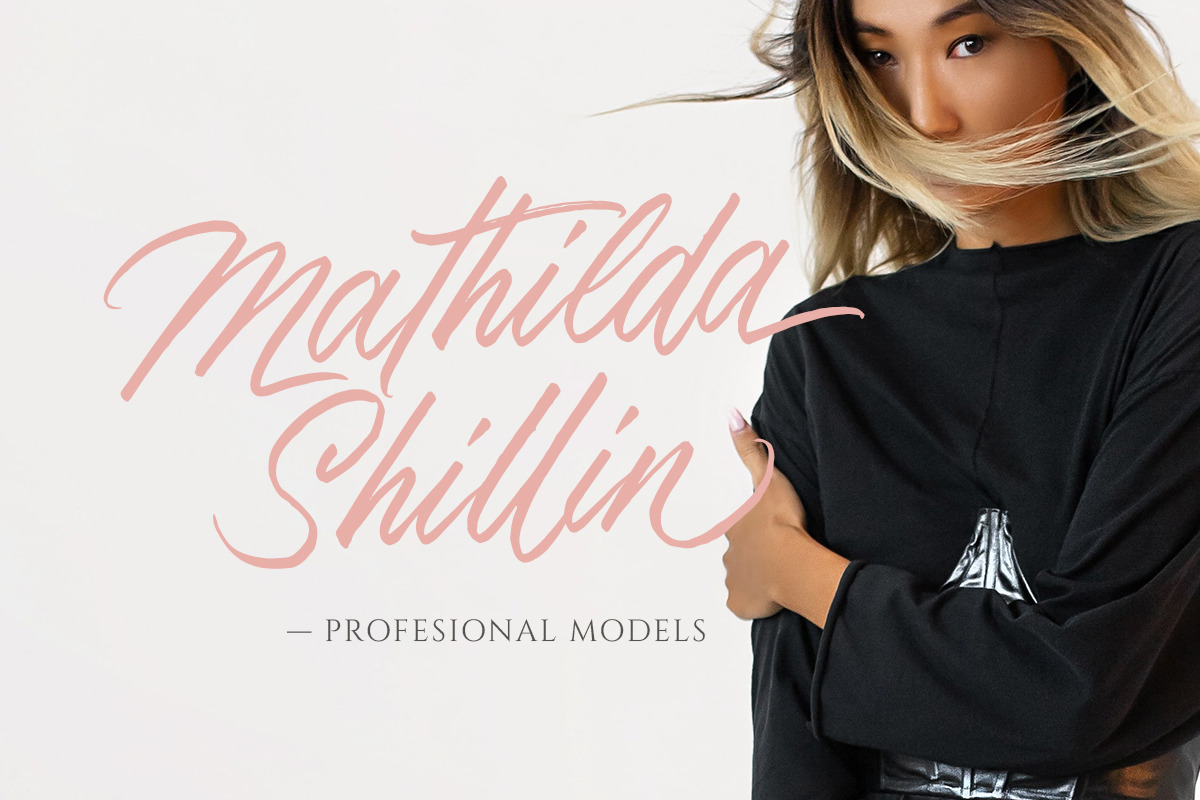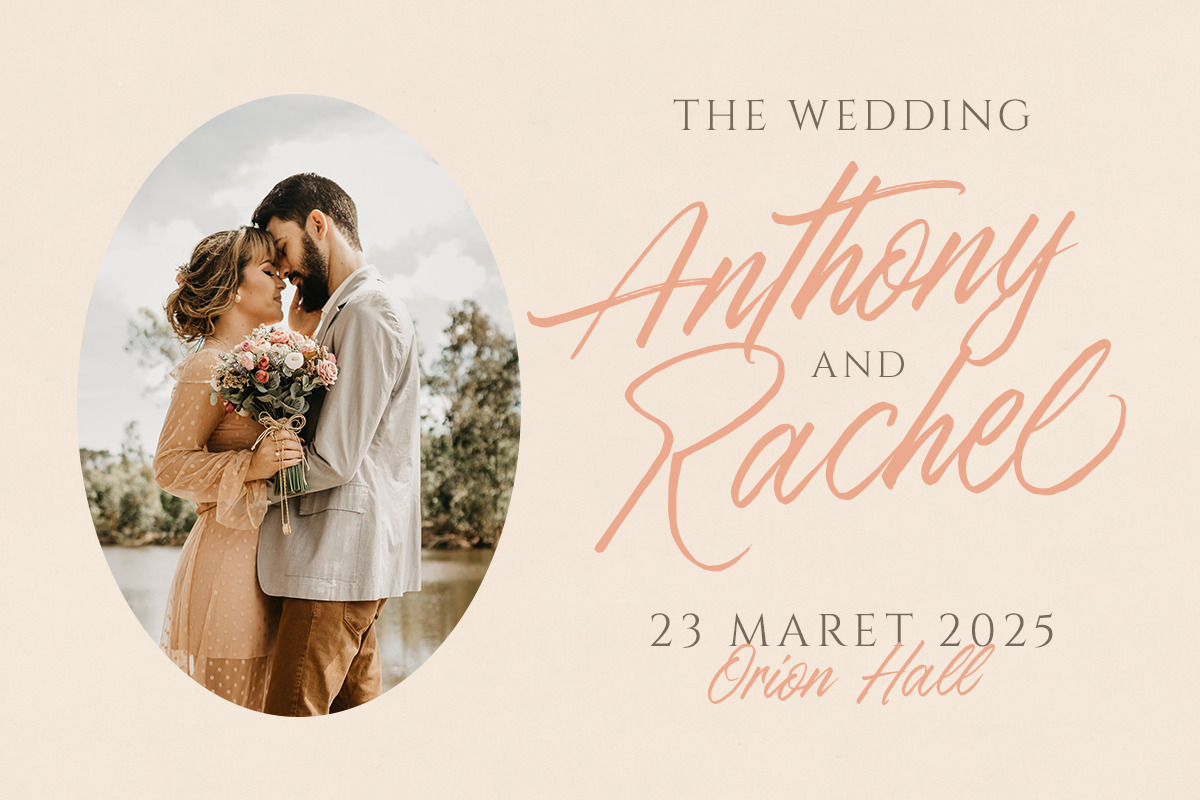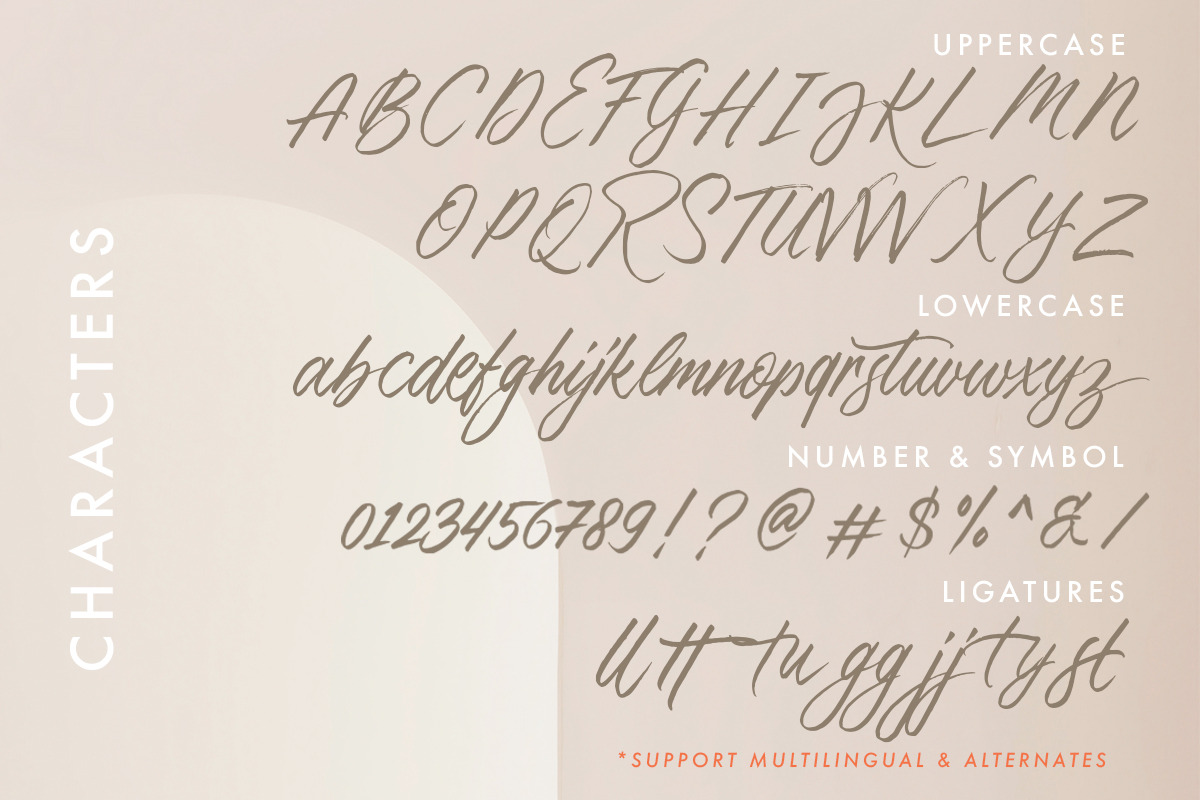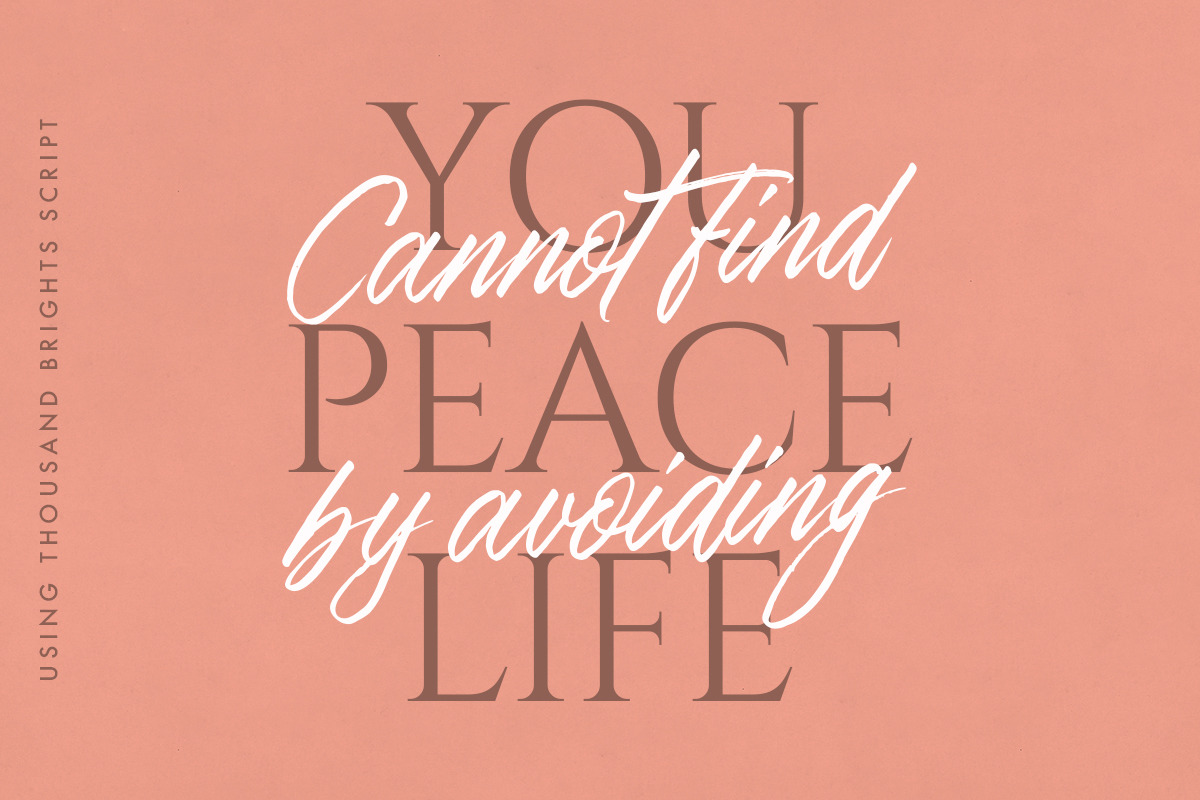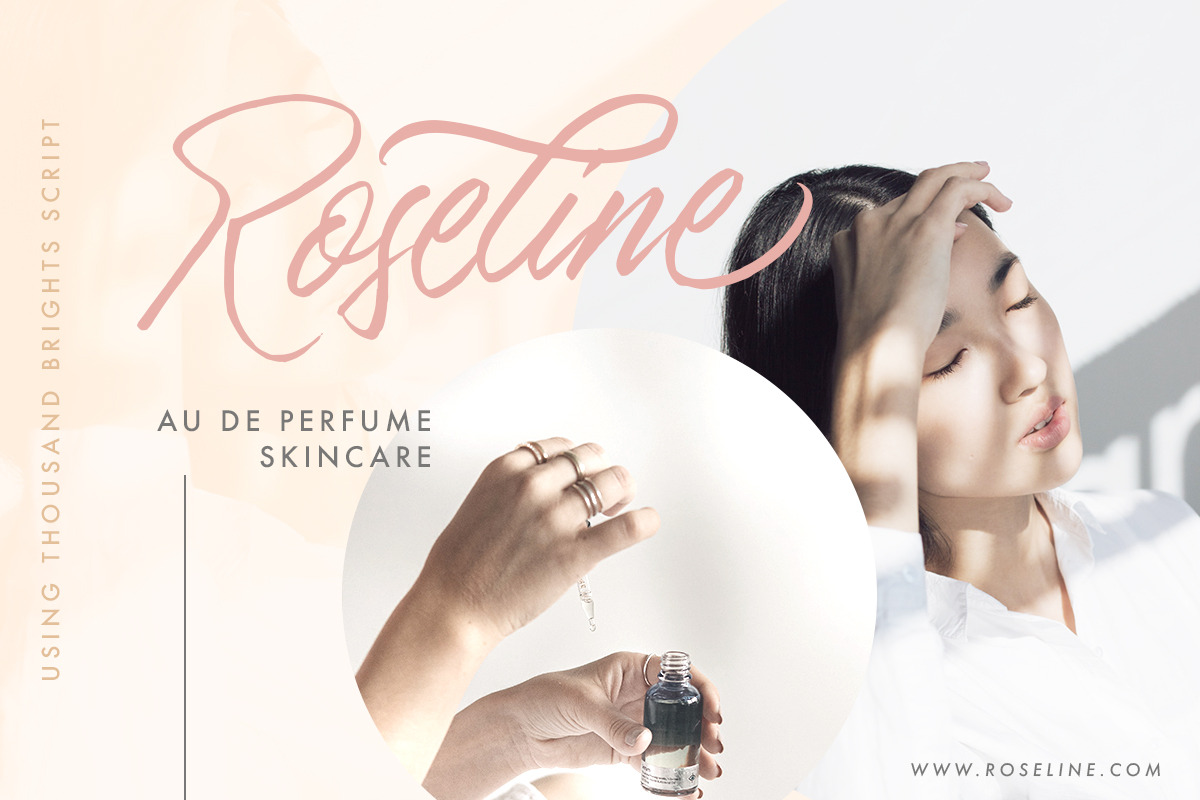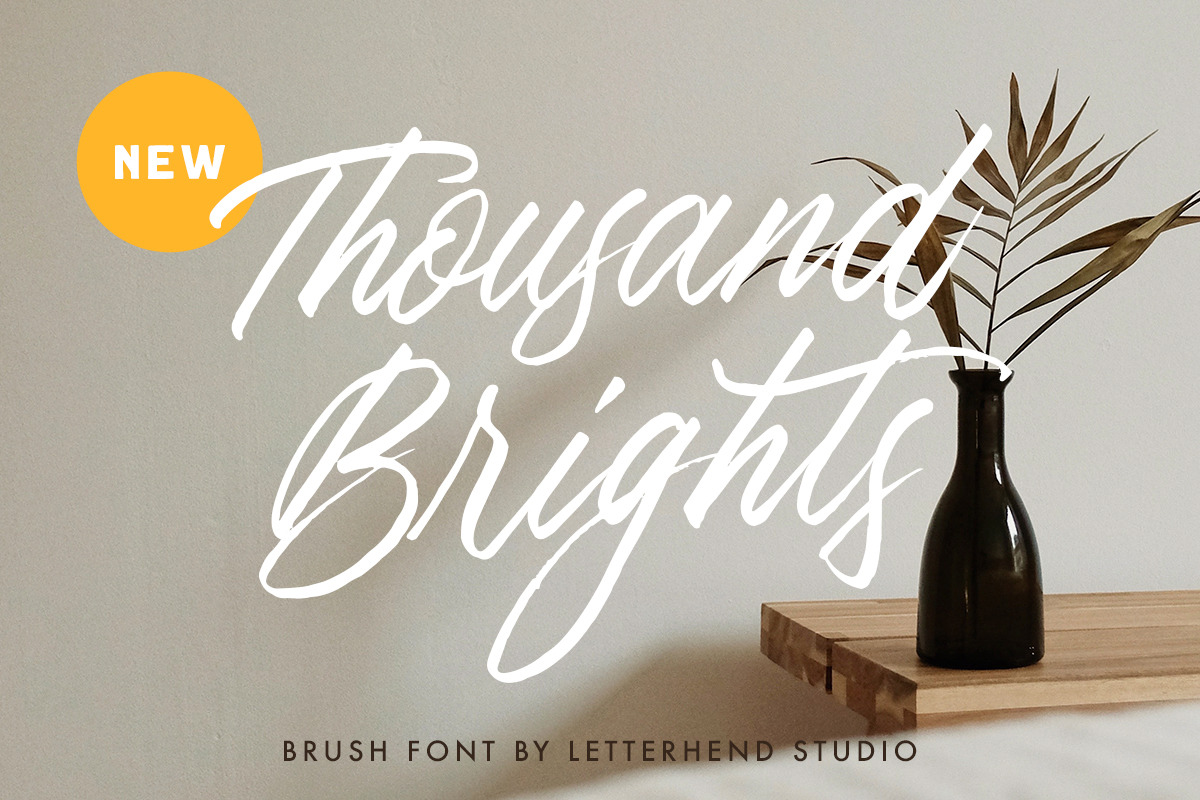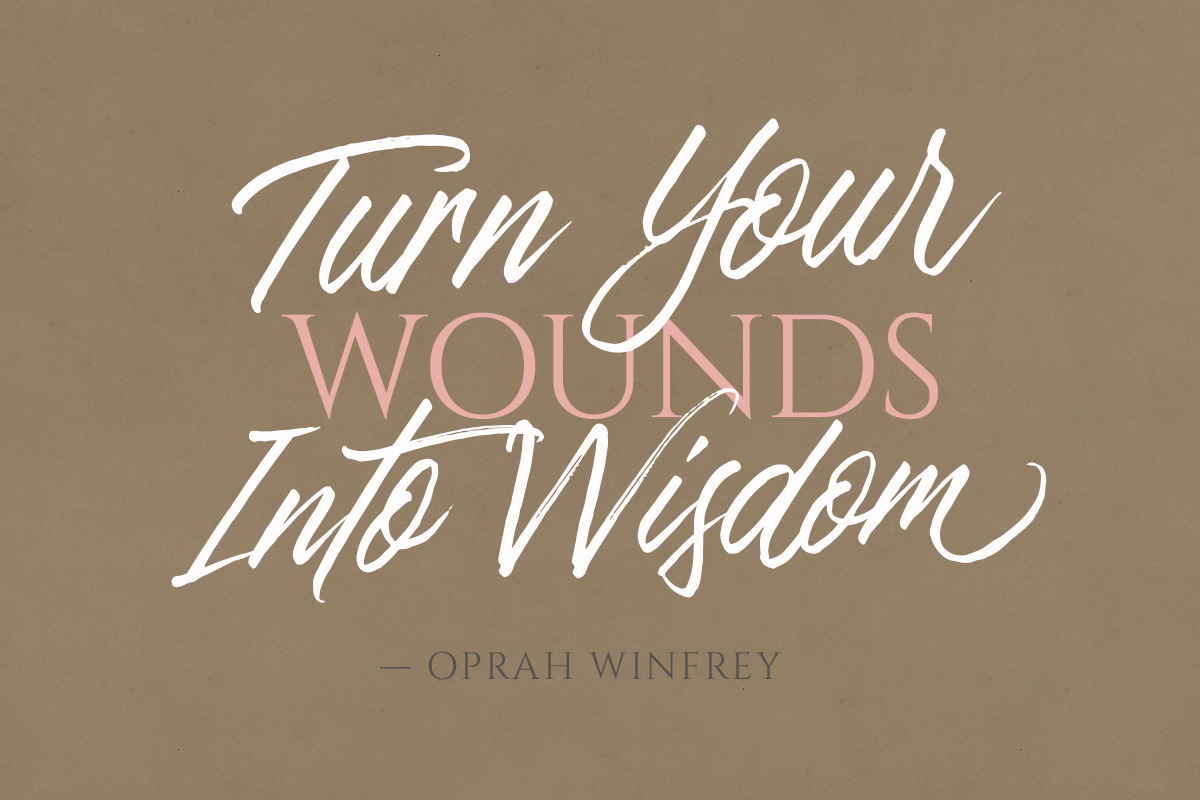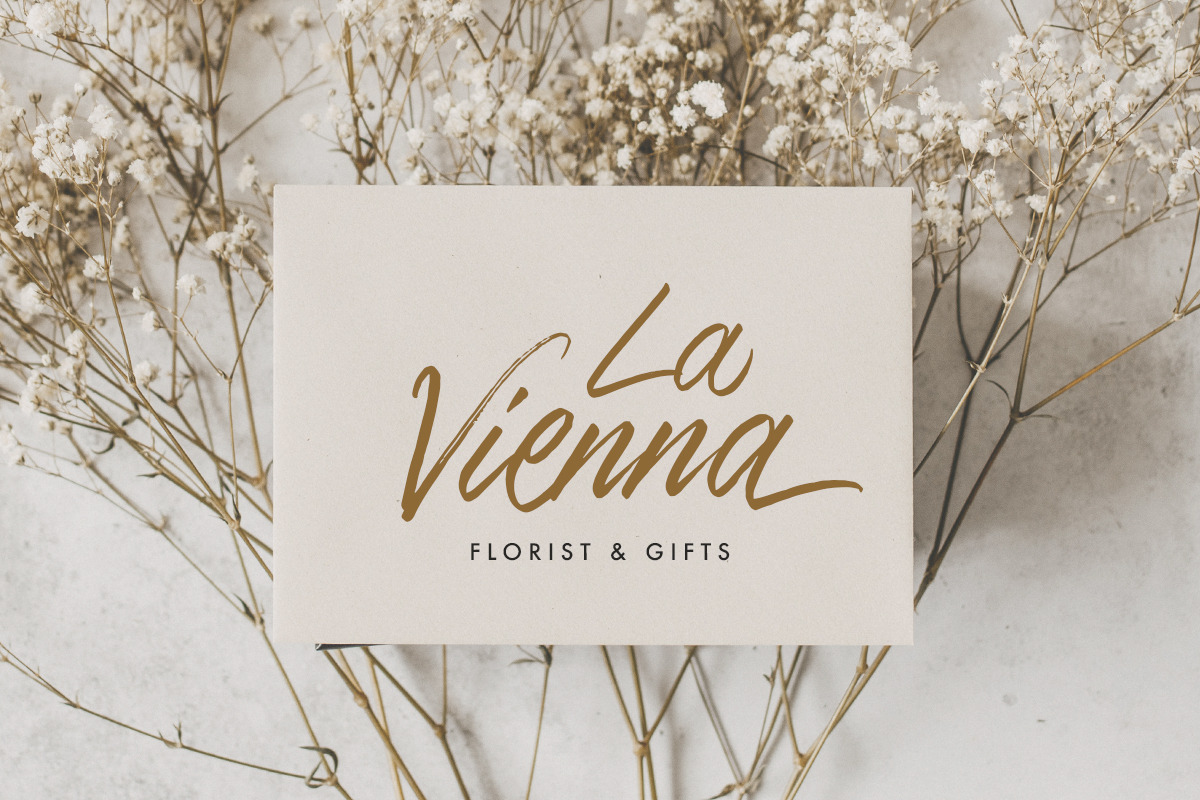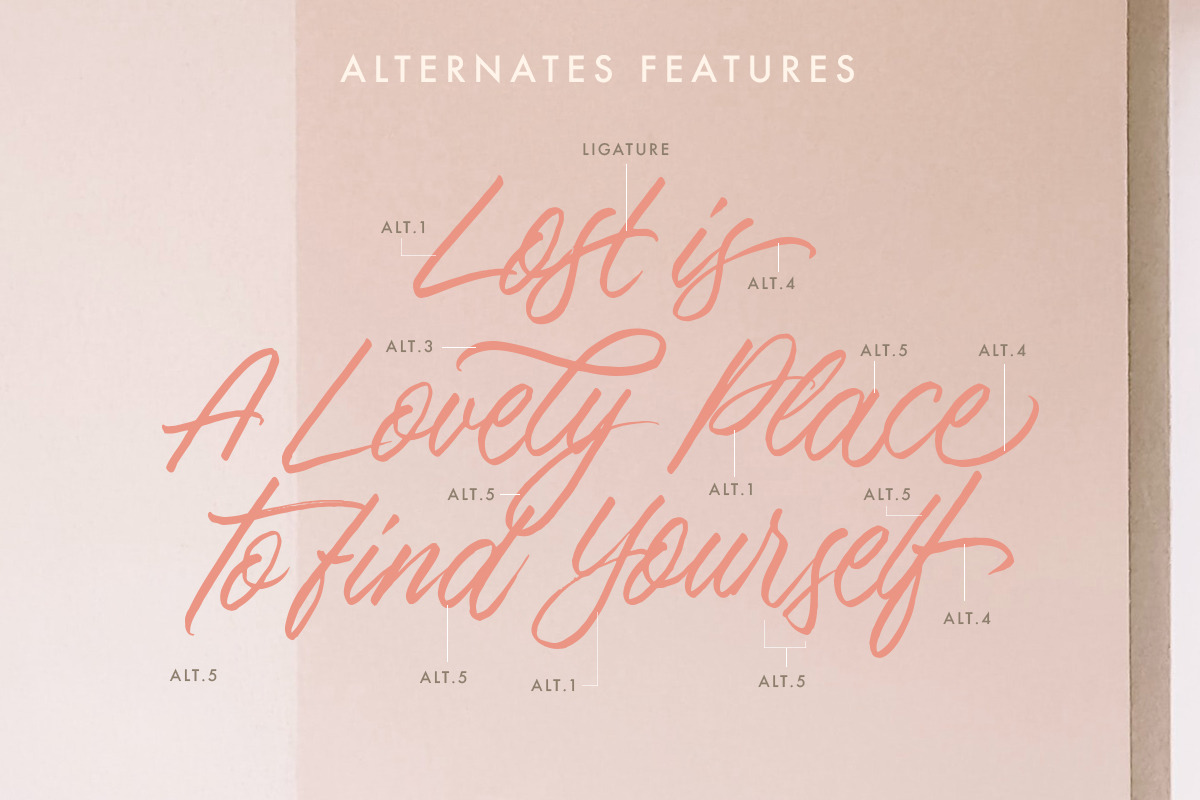
Thousand Brights - Script Font
Thousand Brights is a script font based on authentic hand writing with natural signature style. This type of font perfectly made to be applied especially in logo, and the other various formal forms such as invitations, labels, logos, magazines, books, greeting / wedding cards, packaging, fashion, make up, stationery, novels, labels or any type of advertising purpose.
- alternates and ligatures
- swashes